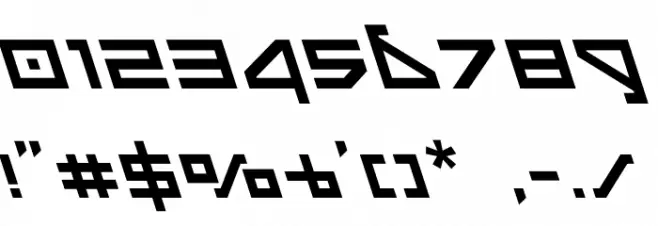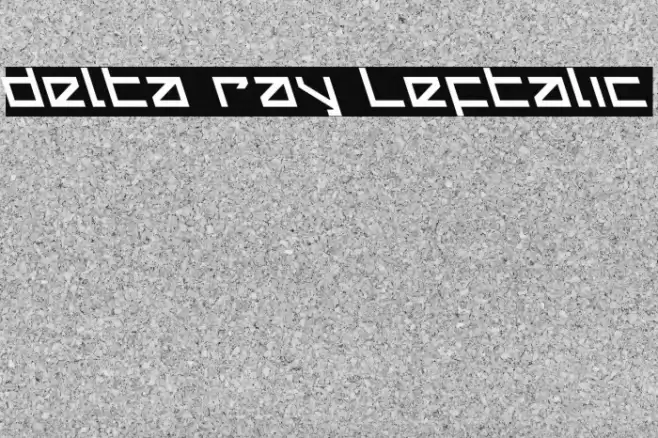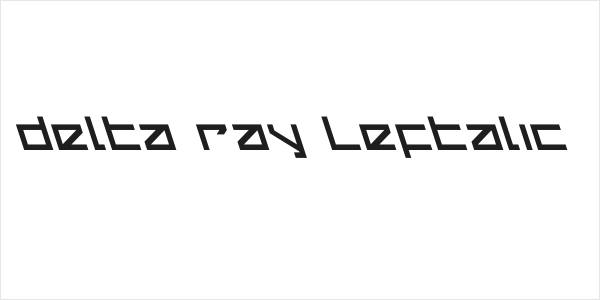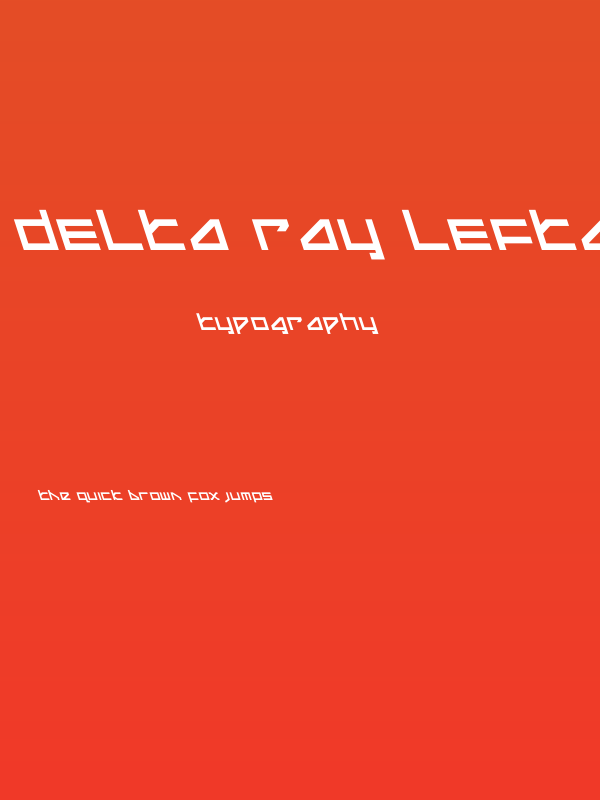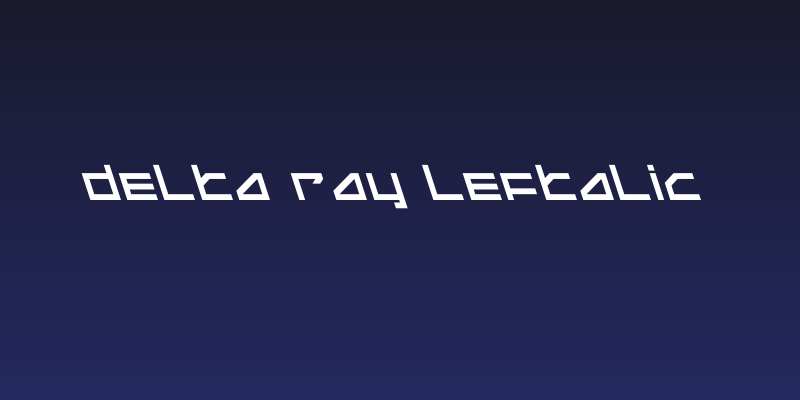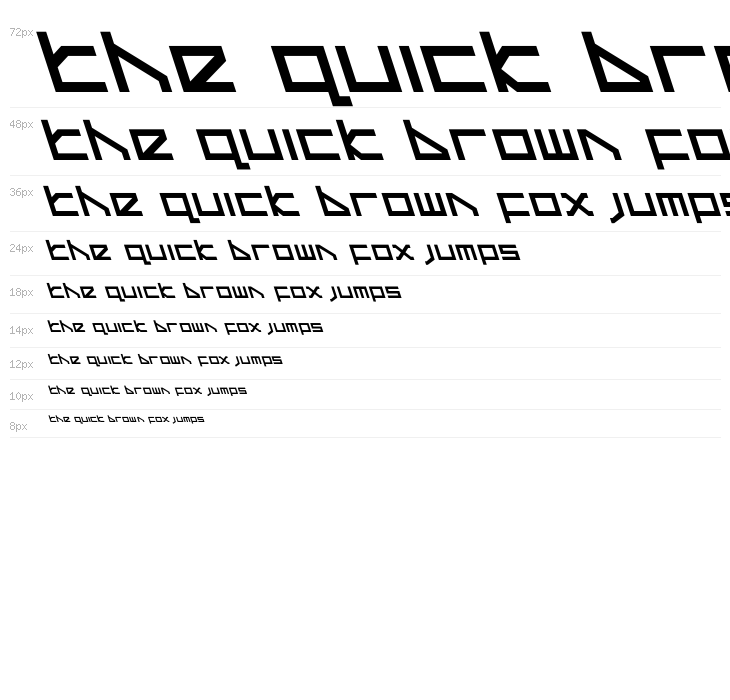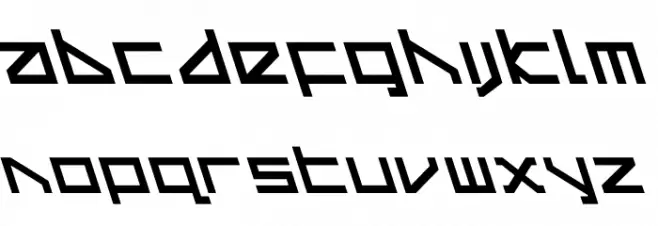
Delta Ray Leftalic Font
Delta Ray Leftalic Description
This font features a futuristic and angular design, characterized by sharp edges and geometric shapes. The letters are bold and have a distinct slant, giving them a dynamic and forward-moving appearance. The uppercase and lowercase letters maintain a consistent style, with a uniform thickness throughout. Numbers and special characters follow the same angular theme, ensuring a cohesive look across all characters. The font's unique style makes it suitable for projects that require a modern and edgy aesthetic.
| Proposed Projects | Ideal for sci-fi themed designs, video game titles, tech branding, and modern posters. |